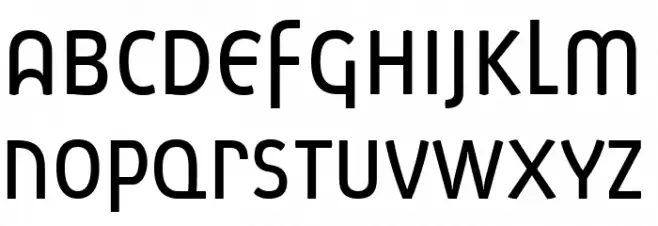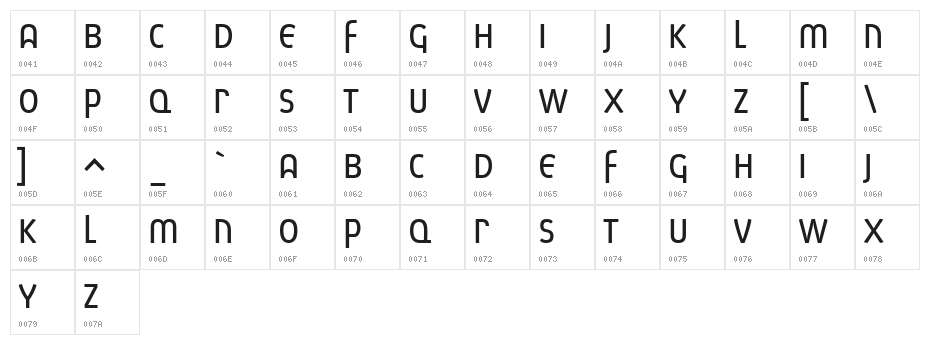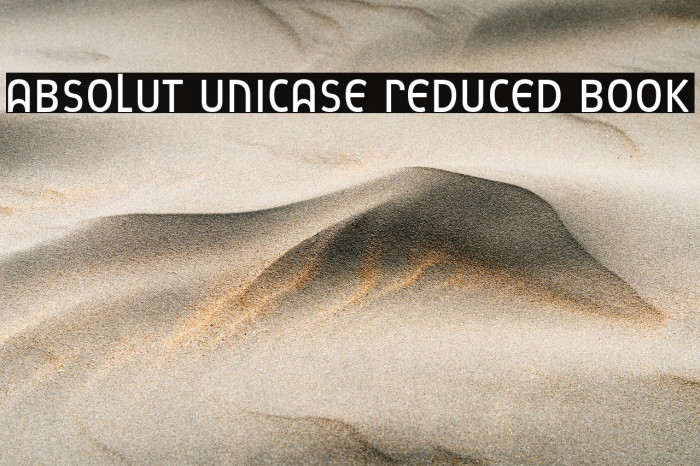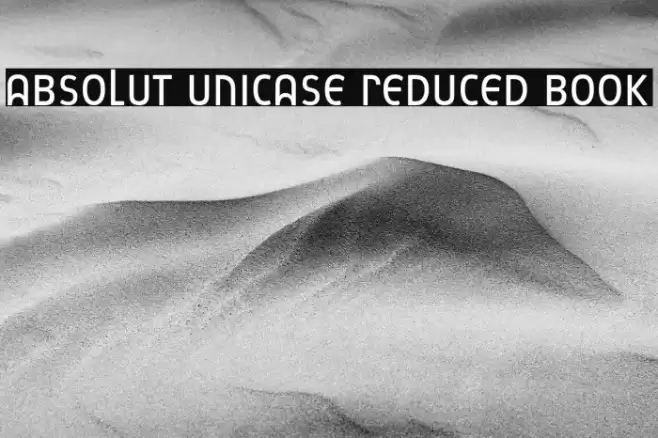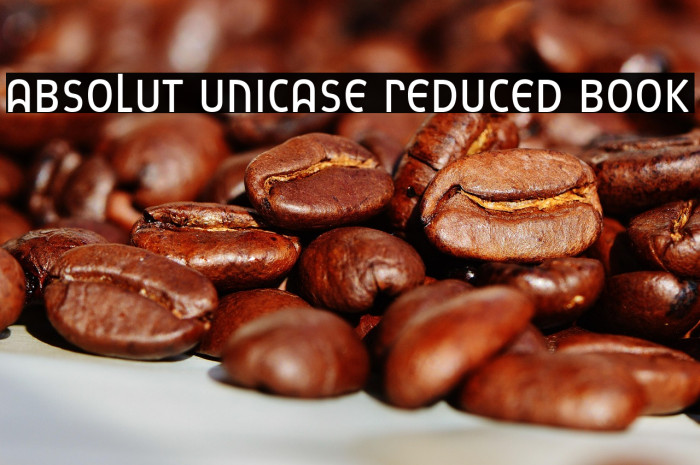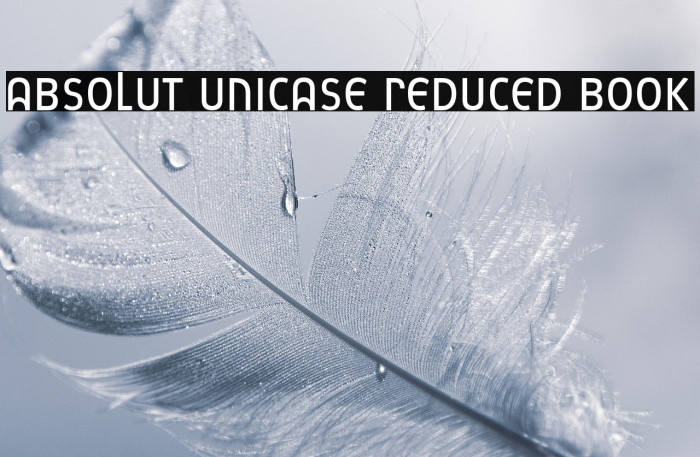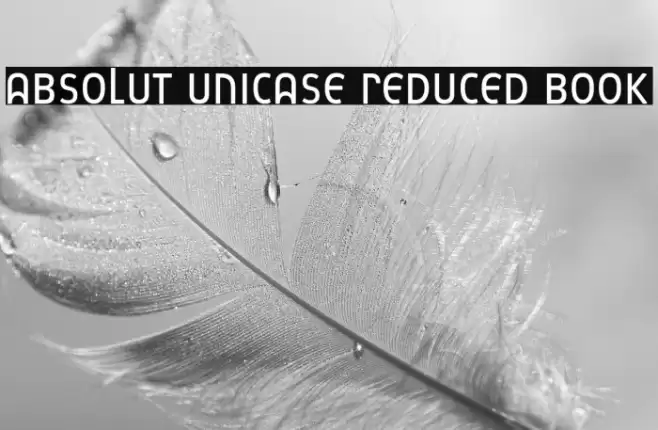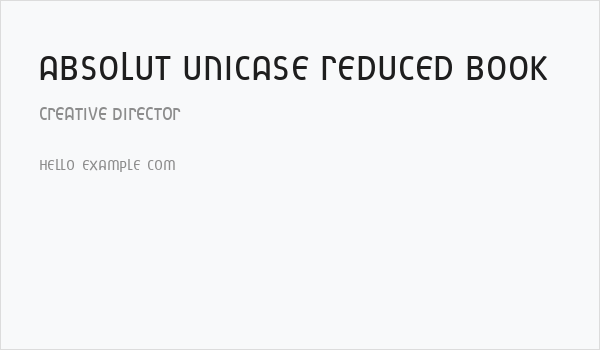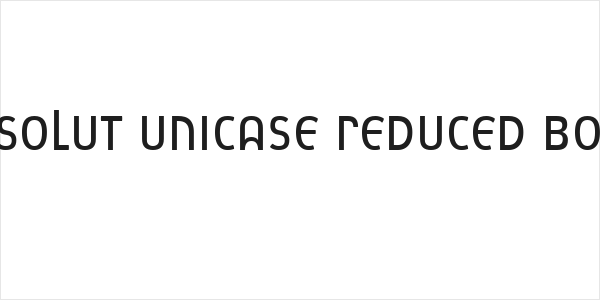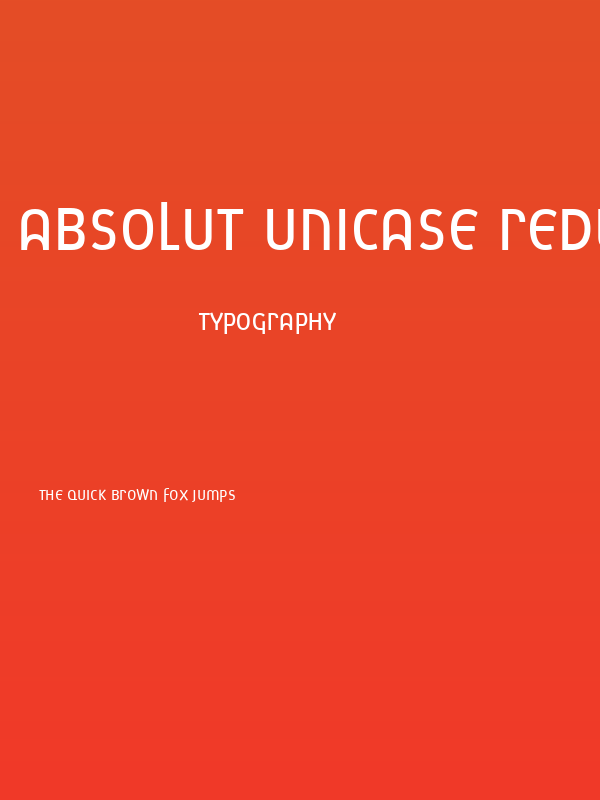
Absolut Unicase Reduced Book Font
Absolut Unicase Reduced Book Description
This font features a modern, geometric design with a unicase style, where uppercase and lowercase letters share similar forms. The characters are clean and rounded, providing a sleek and contemporary appearance. The uniformity in letter height creates a harmonious and balanced look, making it suitable for various design applications. Its simplicity and clarity ensure readability while maintaining a unique aesthetic. The font's structure is consistent, with even stroke widths and smooth curves, giving it a polished and professional feel.
| Use Case | Headlines, Logos, Digital media |
| Proposed Projects | Ideal for branding, advertising, and digital media projects that require a modern and clean aesthetic. |